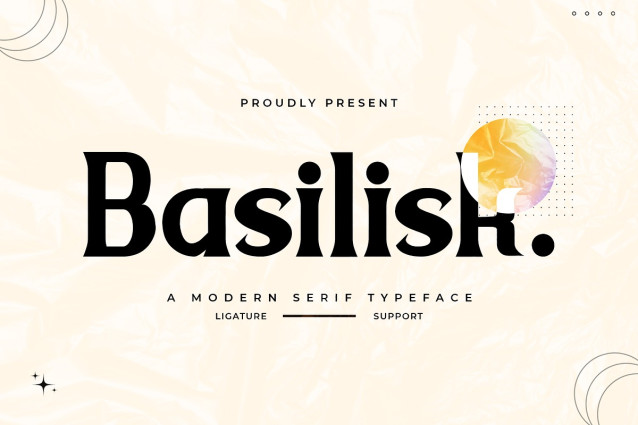
Basilisk Font
Basilisk Font is a striking and sophisticated serif typeface designed to add a touch of modern elegance to your design projects. With its sharp serifs and refined letterforms, Basilisk is perfect for high-end branding, editorial layouts, book covers, and luxury packaging. This font combines the timeless appeal of classic serif typography with contemporary design sensibilities, ensuring your work stands out with grace and style.